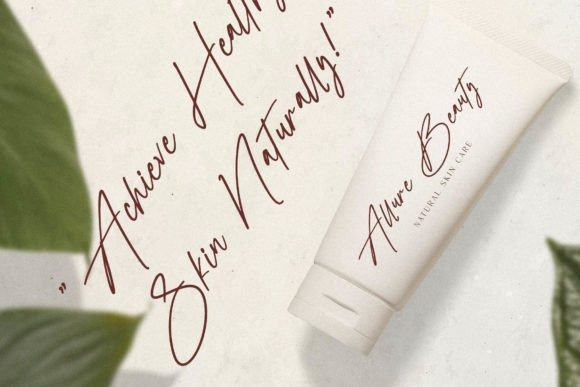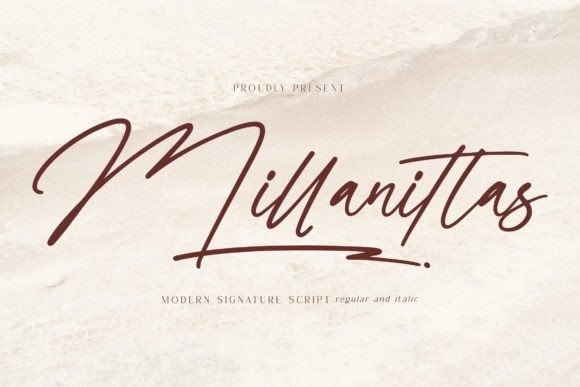
Millanittas Font
Millanittas Font is an elegant script font suitable for any project such as logos, branding projects, homeware designs, product packaging, mugs, quotes, posters, shopping bags, t-shirts, book covers, name card, invitation cards, greeting cards, label, photography, watermark, special events, and all your other lovely projects that need a beautiful script taste.